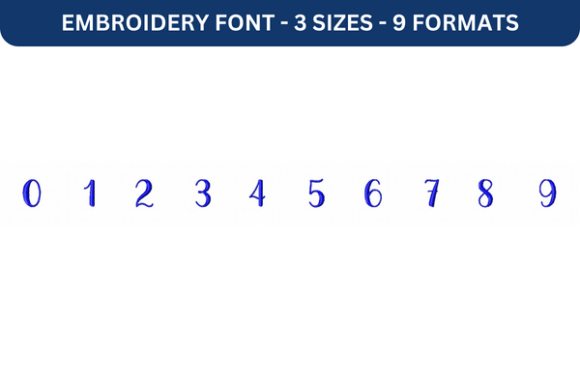
Magnolia Sky Font 0 to 9: A Versatile Embroidery Solution
For those who love the art of personalization, Magnolia Sky Font 0 to 9 stands out as a powerful tool. This high-quality embroidery font is designed to elevate your creative projects with its clean lines and elegant style. Whether you're crafting custom gifts, branding materials, or decorative items, this font offers a unique way to add a personal touch.
Why Magnolia Sky Font 0 to 9 Matters
Magnolia Sky Font 0 to 9 is more than just a set of numbers; it's a versatile design that can transform simple fabric into something special. Its structured yet artistic appearance makes it ideal for both professional and personal use. For professionals in marketing or design, this font can help create eye-catching visuals that align with brand identity. For hobbyists, it adds a new dimension to their creative process.
Enhancing Creativity Through Personalization
One of the most significant benefits of using Magnolia Sky Font 0 to 9 is its ability to enhance creativity. When you can write names, dates, or quotes directly onto fabric, you open up endless possibilities for expression. Imagine adding a meaningful quote to a piece of clothing or a personalized date on a gift. These small details can make a big difference in how your designs are perceived.
For educators, this font could be used to create custom labels for classroom supplies or interactive learning tools. For entrepreneurs, it can help in branding products with unique identifiers or promotional messages. The versatility of this font allows it to fit into various scenarios where personalization is key.
Efficiency and Flexibility in Design
The ease of use is another major advantage. Whether you're a seasoned designer or a beginner, the straightforward nature of this font allows you to focus on your project rather than the technicalities of the design process. This efficiency saves time and reduces frustration, allowing you to bring your ideas to life more quickly.
Supporting Communication and Presentation
In today’s fast-paced world, clear communication is essential. Magnolia Sky Font 0 to 9 helps in this regard by providing a visually appealing way to convey information. Whether you're creating signage for an event or labeling products for sale, this font ensures that your message is both readable and stylish.
For bloggers and content creators, incorporating this font into their designs can help maintain a consistent aesthetic across all platforms. It supports the goal of creating engaging and professional-looking content that resonates with their audience. The visual impact of well-designed text can significantly enhance the overall presentation of any project.
Who Benefits Most from Magnolia Sky Font 0 to 9
While anyone interested in embroidery can benefit from this font, certain groups may find it particularly useful. Small business owners looking to create branded merchandise will appreciate the ability to customize their products with unique identifiers. Freelancers in the design industry can use it to offer more personalized services to their clients.
Hobbyists and DIY enthusiasts will also find value in this font. It opens up new avenues for creative expression, whether it's through custom apparel, home decor, or craft projects. The ability to personalize items adds a layer of meaning and connection that generic designs often lack.
Real-World Applications
These practical applications demonstrate how Magnolia Sky Font 0 to 9 can be integrated into everyday tasks, enhancing both functionality and aesthetics.
Considerations and Limitations
While Magnolia Sky Font 0 to 9 offers many advantages, it's important to consider its limitations. The font is specifically designed for embroidery and may not be suitable for other types of digital design. Additionally, while it provides a wide range of formats, some advanced features may require specific software or hardware to fully utilize.
Users should also consider the size and placement of the embroidery when working with this font. Proper scaling and positioning are crucial to ensure the final result looks polished and professional. It's always a good idea to test the design on a small area before applying it to a larger project.
Conclusion
Magnolia Sky Font 0 to 9 is a valuable asset for anyone looking to add a personal touch to their embroidery projects. Its combination of style, functionality, and versatility makes it an excellent choice for a wide range of applications. Whether you're a professional designer or a hobbyist, this font can help you achieve your creative goals with ease and confidence.